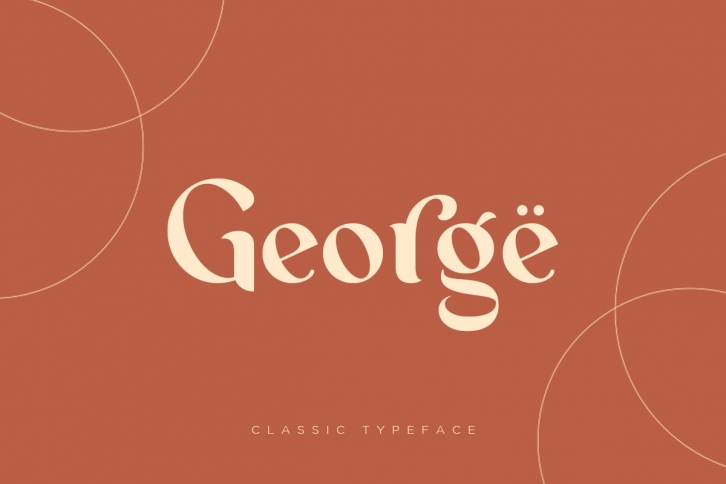
George is a great font that was designed by dharmas. Imagine the amount of combinations you can create using this font! The archive is 7.70 MB and it was released on September 13, 2019. George looks beautiful on wedding invitations, greeting cards, logos, posters, labels, t-shirt designs, logos, business cards and is perfect for use in ink or watercolor works, fashion, magazines, packaging and food menus, children's books and more!